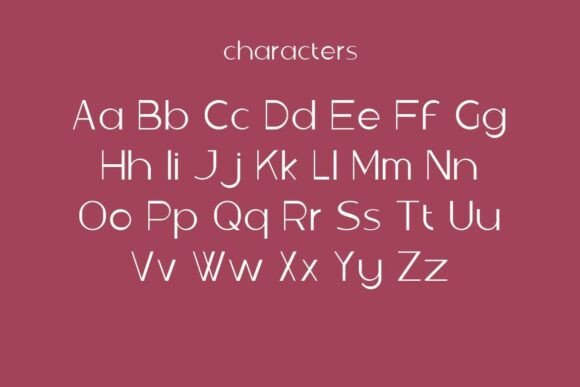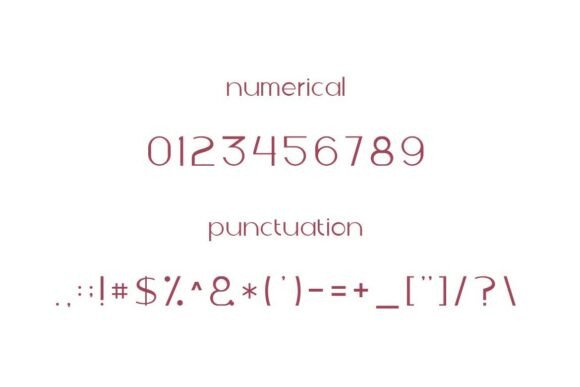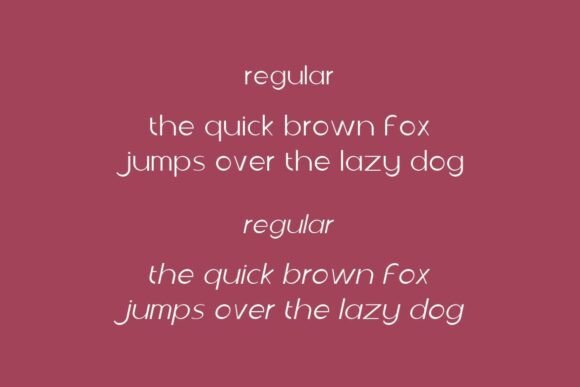
The Ambada Font: A Timeless Elegance for Modern Design
An Honest Review of Ambada Font
What I Love About Ambada
- ✨ Smooth curves and balanced spacing that create a sense of harmony
- ✅ Neutral tone that fits perfectly into various design contexts
- 🎨 Versatile and adaptable to different design styles and industries
While Ambada is an excellent font, it’s not perfect. Here are a few things to keep in mind:
- 🤔 Limited character variations, which might not be suitable for projects that require a high degree of customization
- ⚠️ May not be the best choice for body text in academic or technical writing, where serif fonts are often preferred
The Designer Inspiration Behind Ambada
Ambada was designed with the goal of creating a clean and modern sans-serif font that embodies the beauty of simplicity. The designer wanted to create a font that would be timeless and elegant, yet highly legible and versatile. The result is a font that’s perfect for branding, editorial layouts, packaging, websites, and lifestyle content.
Q: What is the x-height of Ambada font?
A: The x-height of Ambada font is approximately 0.5, which makes it highly legible and suitable for body text.
Q: Is Ambada font suitable for body text?
A: Yes, Ambada font is suitable for body text, especially in designs where clarity and readability are essential.
Q: Is Ambada font available in different weights?
A: Yes, Ambada font is available in multiple weights, which makes it versatile and adaptable to different design contexts.